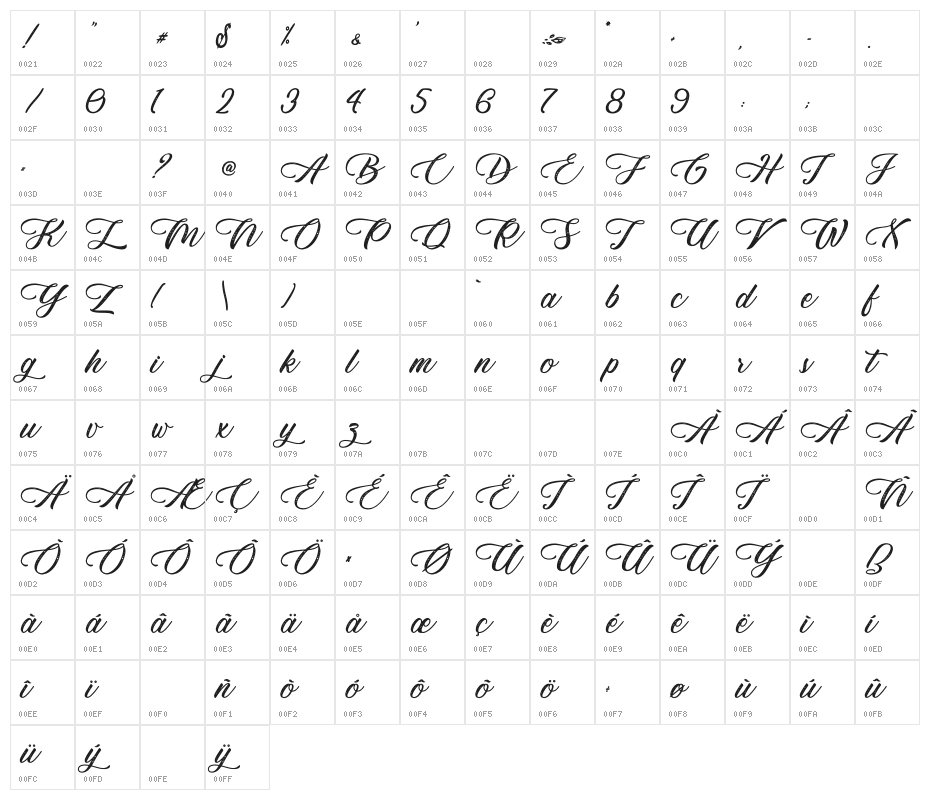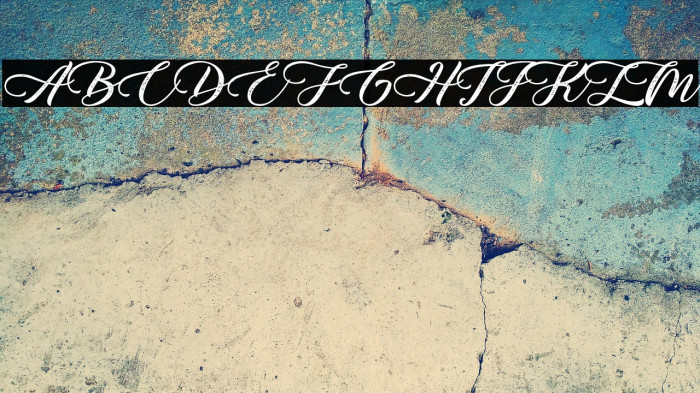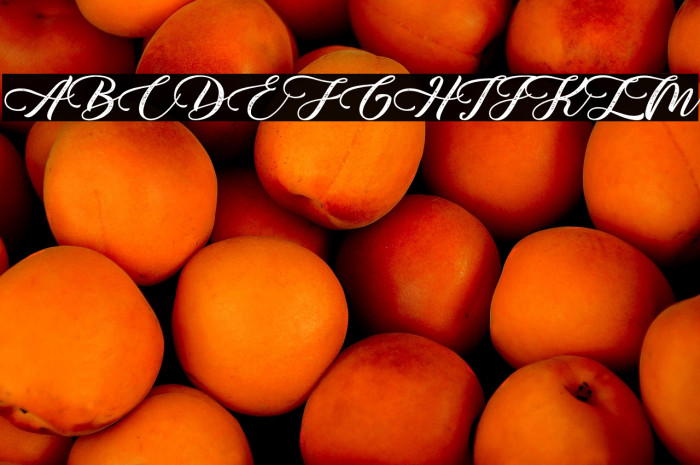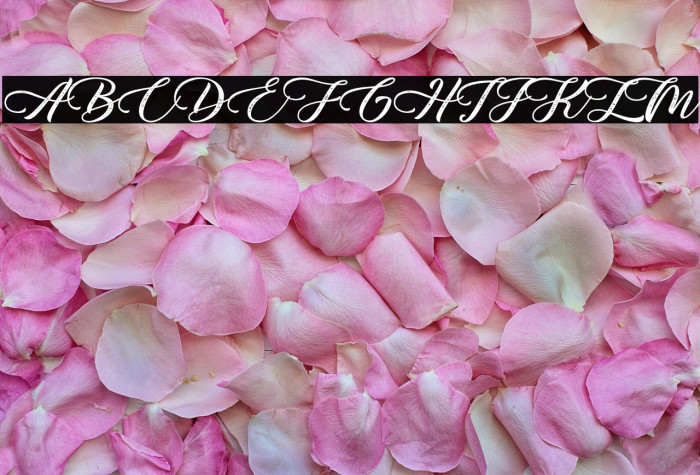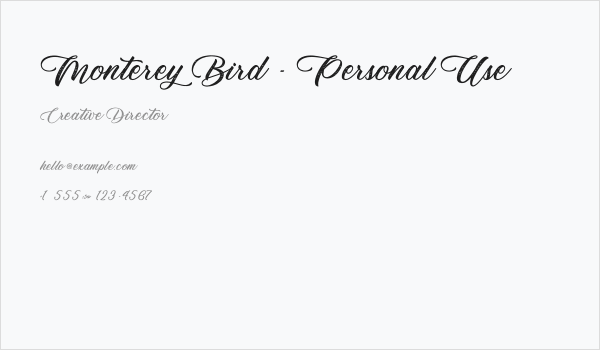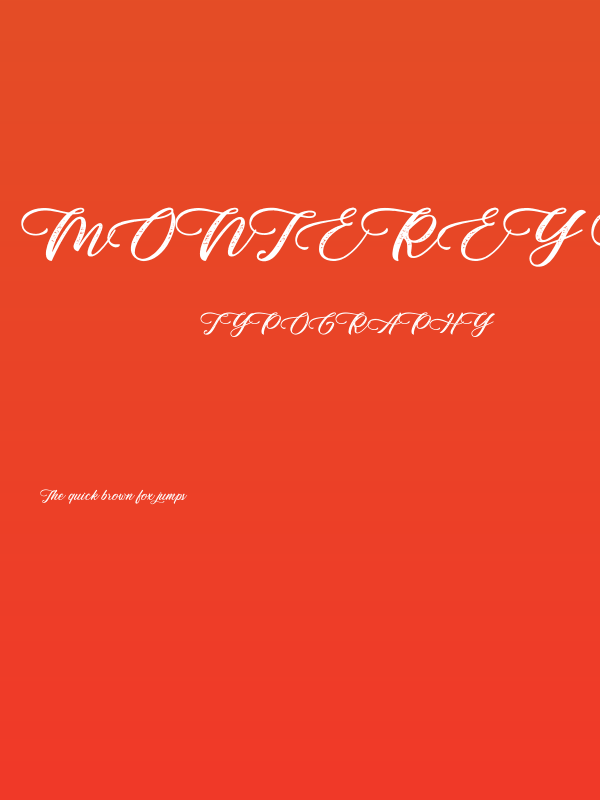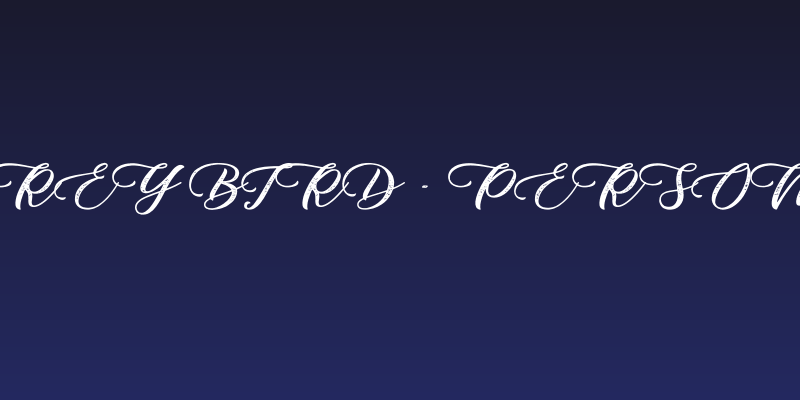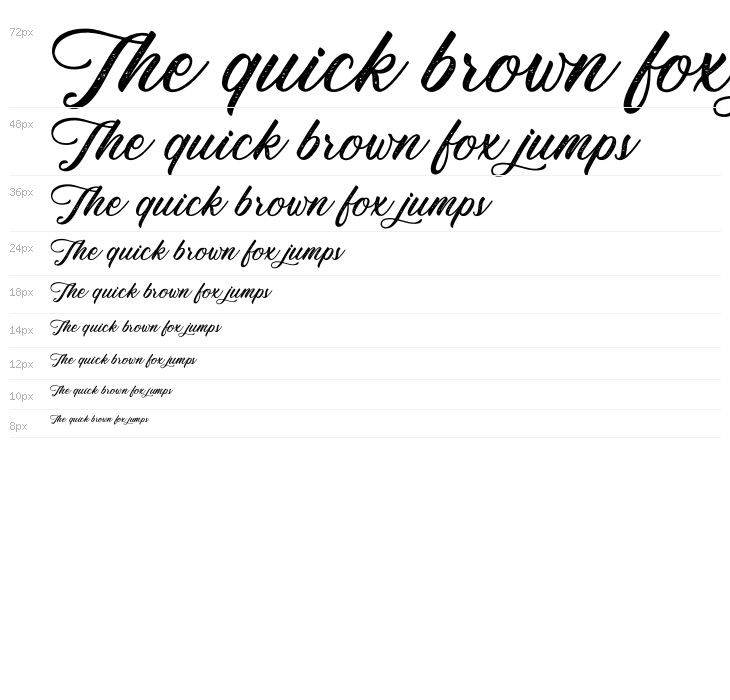
Monterey Bird - Personal Use Font
Monterey Bird - Personal Use Description
This font features an elegant and flowing script style, characterized by its smooth, cursive letterforms. The uppercase letters are intricately designed with sweeping loops and flourishes, while the lowercase letters maintain a consistent, connected flow. The numbers and special characters complement the overall aesthetic with similar curves and embellishments. The font exudes a sense of sophistication and grace, making it ideal for projects that require a touch of elegance and personal flair.